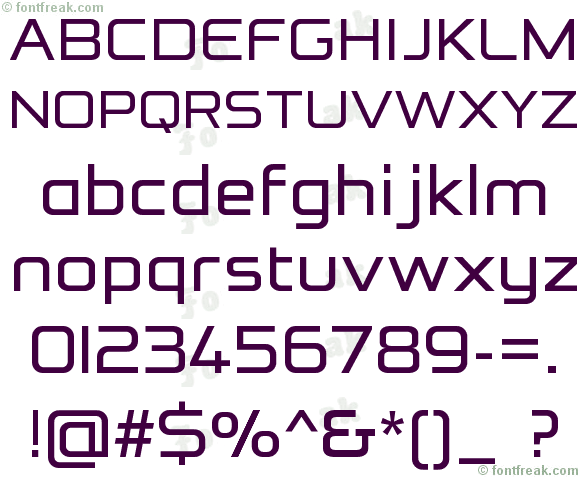
ReFormation Sans Regular
ReFormation Sans Regular is a contemporary sans-serif typeface designed by Steve Gardner. This font embodies a modern aesthetic, characterized by clean lines and a balanced stroke weight that provides excellent legibility across various mediums. The design embraces a minimalist approach, with subtle geometric influences that contribute to its overall clarity. The spacing between characters is well-considered, ensuring that text remains approachable and easy to read, making it suitable for both digital and print applications.
This versatile font is ideal for a range of use cases. It shines in branding projects, where clarity and a contemporary feel are essential, making it perfect for logos and business cards. Additionally, ReFormation Sans Regular can be effectively utilized in website designs, creating a polished and professional appearance for content-heavy sites. Its clear readability makes it an excellent choice for headlines in magazines or brochures, while its modern style lends itself well to social media graphics aimed at engaging a youthful audience. Content creators will appreciate its adaptability for presentations, ensuring that information is communicated effectively.
What sets ReFormation Sans Regular apart is its unique ability to merge contemporary design with practical usability. The font stands out for its versatility, making it an excellent addition to any designer's toolkit. For those looking to enhance their projects with a fresh, modern touch, the ReFormation Sans Regular font free download is an ideal choice.